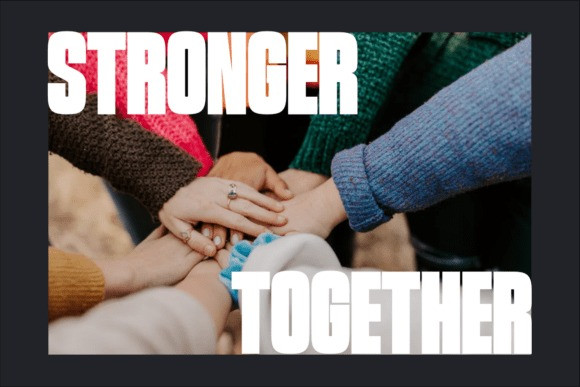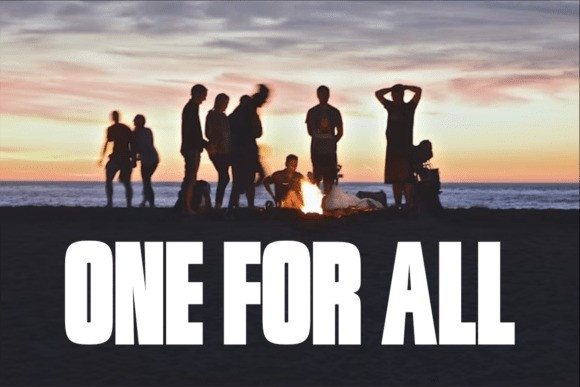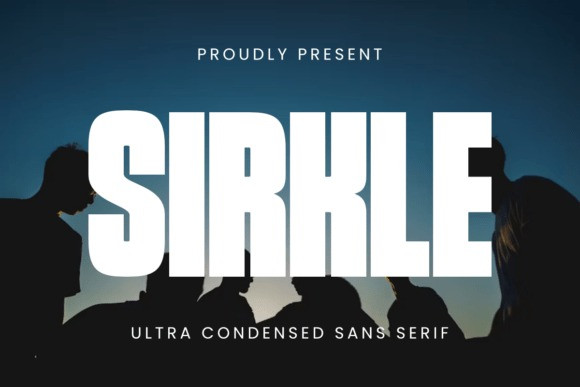
Sirkle Font
Sirkle Font is a bold, strong and modern sans-serif typeface, perfect for titles or logos. The font has the following notable features:
Simple and clean design: There are no sharp serifs at the end of each character, giving it a clean and legible look, especially when viewed from a distance.
Capital letters: All letters are capitalized, giving it a strong feel and attracting maximum attention.
Weight and width: The letters are thick and have a moderate width, ensuring visibility and creating a strong visual impact.
Versatility: Despite its modern nature, this font is versatile enough to be used in a variety of contexts, from advertising, posters to branding designs that require a standout look.
With these characteristics, the “SIRKLE” font in the image is an ideal choice for designs that need to convey a message in a direct, clear and energetic way.